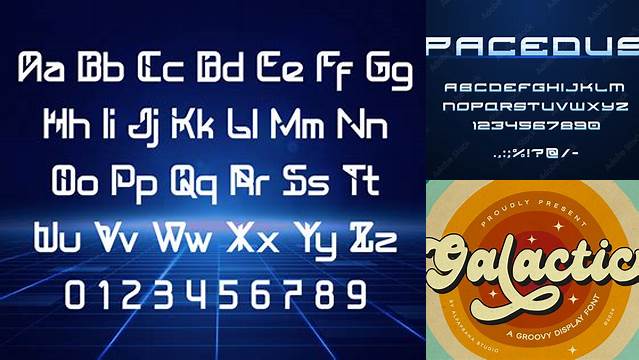
Space Fonts: Galactic Typography On FontSpace
Hey guys! Ever felt like your designs are missing that cosmic touch? Want to blast your audience into another galaxy with your typography? Well, you’ve landed in the right place! We're diving deep into the universe of space fonts on FontSpace, exploring everything you need to know to make your projects stellar. From sleek, futuristic designs to retro, sci-fi vibes, get ready to discover a font that’s truly out of this world! Let's embark on this interstellar journey together and make your words shine brighter than a supernova! Get ready to elevate your design game to astronomical levels. In this article, we will cover everything from the basics of space fonts to advanced tips and tricks for using them effectively. We’ll explore the history, the different styles available, and how to choose the perfect one for your project. So buckle up, because we’re about to launch into a galaxy of type!
1. What are Space Fonts?
So, what exactly are space fonts, you ask? Well, think of them as the typographical equivalent of a rocket ship! These fonts are designed to evoke the feeling of outer space, futuristic technology, and the unknown. They often feature sleek lines, geometric shapes, and a modern aesthetic. Space fonts can range from minimalist and clean to bold and experimental, making them incredibly versatile for a variety of projects. You'll often find these fonts used in science fiction themes, tech startups, and anything that needs a touch of the future. The use of space fonts can instantly add a layer of sophistication and intrigue to your designs. Imagine the possibilities! From sleek logos to captivating posters, a well-chosen space font can make all the difference. These fonts are not just about aesthetics; they're about conveying a message of innovation, progress, and boundless possibilities. When you're looking for that extra something to make your project stand out, consider the power of space fonts. They’re the secret ingredient to making your designs truly shine in the vast expanse of the creative universe.
2. The History and Evolution of Space Fonts
The history of space fonts is as fascinating as the cosmos itself! This genre of typography has evolved alongside our fascination with space exploration and science fiction. Early examples can be traced back to mid-20th century science fiction films and literature, where designers sought to create visuals that matched the futuristic narratives. These early fonts often featured sharp angles, bold lines, and a sense of mechanical precision. As technology advanced and our understanding of space deepened, so too did the design of space fonts. The digital age brought new tools and techniques, allowing for more intricate and experimental designs. Today, space fonts are incredibly diverse, ranging from retro-futuristic styles reminiscent of classic sci-fi to sleek, modern designs that mirror cutting-edge technology. This evolution reflects not only our changing aesthetic preferences but also our ever-expanding vision of the future. The ongoing exploration of space continues to inspire new designs, making the history of space fonts a dynamic and ever-evolving story. Understanding this history gives you a greater appreciation for the artistry and creativity behind these fonts, and it helps you choose the perfect one to convey your message effectively. The journey of space fonts mirrors our own journey into the stars—full of innovation, imagination, and endless possibilities.
3. Popular Styles of Space Fonts on FontSpace
FontSpace is a treasure trove of space fonts, guys! You can find a huge variety of styles to suit any project. One popular style is the futuristic sans-serif. These fonts are characterized by their clean lines and minimalist designs, perfect for conveying a sense of modernity and technology. Think sleek logos and website headers! Another style is the retro-futuristic, which draws inspiration from classic science fiction. These fonts often have a more playful and whimsical feel, with rounded edges and unique letterforms. They're great for posters, book covers, and anything that needs a touch of vintage charm. Then there are the geometric space fonts, which use simple shapes and precise angles to create a visually striking effect. These fonts are bold and impactful, making them ideal for headlines and titles. Don't forget about the handwritten space fonts! These add a personal touch to your designs, while still maintaining a sci-fi vibe. No matter what your project is, FontSpace has a space font that will fit the bill. Exploring these diverse styles allows you to find the perfect voice for your design, whether you’re aiming for a sleek, modern look or a retro-futuristic feel. The variety on FontSpace means you're sure to discover a font that not only meets your needs but also inspires your creativity. So dive in and explore the endless possibilities!
4. How to Choose the Right Space Font for Your Project
Choosing the right space font for your project can feel like navigating a galaxy of options! But don't worry, guys, it's easier than you think. First, consider the overall tone and message you want to convey. Are you aiming for a sleek and modern look, or a more retro and playful feel? A futuristic sans-serif might be perfect for a tech startup, while a retro-futuristic font might be better for a science fiction novel cover. Next, think about the context in which the font will be used. Is it for a headline, body text, or a logo? Bold fonts work well for headlines, while more readable fonts are better for body text. Also, make sure the font is legible at different sizes. Test it out! Another important factor is the font's personality. Does it match the brand or project's identity? A geometric font might convey a sense of strength and precision, while a handwritten space font might feel more approachable and creative. Finally, don't be afraid to experiment! Try out different space fonts and see what resonates with you. FontSpace makes it easy to preview fonts and see how they look in your designs. With a little careful consideration, you'll find the perfect space font to make your project shine. Remember, the right font can elevate your design from ordinary to extraordinary, so take the time to choose wisely!
6. Best Futuristic Sans-Serif Space Fonts
Let’s blast off with some of the best futuristic sans-serif space fonts! Guys, these fonts are all about clean lines, minimalism, and a modern vibe. They're perfect for projects that need a techy, cutting-edge feel. Think logos, websites, app interfaces, and anything else that screams “future!” One standout is the Roboto font family. It’s a classic for a reason, offering excellent readability and a sleek design. Then there’s Montserrat, another popular choice with its geometric forms and clean lines. It's super versatile and looks great in both headlines and body text. Exo 2 is another fantastic option, with its sharp angles and futuristic aesthetic. It's perfect for making a bold statement. Don't forget about Rajdhani, a font that balances modern design with a touch of retro flair. It's a great choice if you want something that stands out but isn't too over-the-top. When you're choosing a futuristic sans-serif space font, consider its legibility and how well it fits with your overall design. These fonts are all about conveying a sense of innovation and sophistication, so make sure you pick one that reflects your message. With the right futuristic sans-serif space font, your project will look like it came straight from the 31st century! These fonts are your secret weapon for creating designs that are both stylish and forward-thinking.
7. Top Retro-Futuristic Space Font Choices
Time to jump into the retro-futuristic realm of space fonts! These fonts blend vintage charm with a sci-fi twist, giving your projects a unique and nostalgic feel. Imagine those classic sci-fi movie posters—that’s the vibe we’re going for! One top choice is Orbitron, a geometric sans-serif that screams retro-futurism. It’s bold, impactful, and perfect for headlines and titles. Bebas Neue is another fantastic option, with its tall and narrow letterforms. It’s super versatile and adds a touch of vintage cool to any design. Then there’s Akronim, a display font with a distinctive Art Deco influence. It’s perfect for adding a touch of elegance to your retro-futuristic projects. Don't forget about Pixel Operator, a pixelated font that brings a video game vibe to your designs. It's perfect for anything that needs a playful and nostalgic feel. When choosing a retro-futuristic space font, think about the era you want to evoke. Are you going for a 1950s sci-fi vibe or a more 1980s arcade feel? The right font can transport your audience to another time and place. With these top retro-futuristic space font choices, your designs will be out of this world! They’re the perfect way to add character and personality to your projects, making them stand out in a galaxy of ordinary designs.
8. Geometric Space Fonts for Impactful Designs
Ready to make a statement? Geometric space fonts are your go-to for impactful designs! These fonts use simple shapes and precise angles to create a visually striking effect. They’re bold, modern, and perfect for headlines, logos, and anything that needs to grab attention. Think clean lines and strong forms that command the viewer's gaze. One standout is Raleway, a versatile sans-serif with a geometric twist. It’s clean, elegant, and works well in a variety of contexts. Poppins is another excellent choice, with its circular forms and modern aesthetic. It’s super readable and looks great in both headlines and body text. Then there’s Futura, a classic geometric font that’s been used in countless iconic designs. It’s timeless and sophisticated. Don't forget about Cabin, a humanist sans-serif with a geometric structure. It's friendly and approachable, while still maintaining a modern feel. When choosing a geometric space font, consider the overall tone of your design. Are you aiming for a minimalist and sophisticated look, or a more bold and impactful statement? The right geometric font can add a sense of strength and precision to your project. With these top geometric space fonts, your designs will be sure to make a lasting impression. They’re the secret weapon for creating visuals that are both stylish and memorable, ensuring your message is heard loud and clear.
9. Handwritten Space Fonts: A Personal Touch
Let's add a personal touch to our cosmic designs with handwritten space fonts! Guys, these fonts bring a unique, human element to the futuristic genre. They’re perfect for projects that need a blend of high-tech and approachability. Think branding, invitations, and anything that needs a touch of warmth. One fantastic option is Permanent Marker, a bold and casual handwritten font that adds a playful vibe. It’s perfect for headlines and titles. Then there’s Architects Daughter, a clean and legible handwritten font that’s great for body text. It has a friendly and approachable feel. Amatic SC is another excellent choice, with its condensed letterforms and playful style. It’s perfect for posters and flyers. Don't forget about Coming Soon, a quirky handwritten font that adds a touch of whimsy to any design. When choosing a handwritten space font, consider the overall tone of your project. Are you aiming for a casual and friendly feel, or a more sophisticated and elegant look? The right handwritten font can make your design feel more personal and inviting. These fonts are the perfect way to balance the sleekness of space-themed designs with a touch of human warmth, making your project more engaging and relatable. With the right handwritten space font, your designs will feel like a friendly message from the future!
10. Space Fonts for Logos: Making Your Brand Stellar
Time to make your brand stellar with space fonts for logos! Your logo is the face of your brand, so choosing the right font is crucial. Space fonts can give your logo a modern, futuristic, or even retro-futuristic feel, depending on the style you choose. Think of brands like Tesla or SpaceX—their logos convey innovation and cutting-edge technology. That’s the power of a well-chosen space font. One key tip is to keep it simple and legible. A complex font might look cool, but if it’s hard to read, it won’t work well in a logo. Futuristic sans-serif fonts are often a great choice for logos, as they convey a sense of modernity and professionalism. Geometric fonts can also work well, adding a sense of strength and precision. If your brand has a more playful or retro vibe, a retro-futuristic space font might be the perfect fit. Don’t be afraid to experiment with different fonts and see what resonates with your brand’s identity. Consider the colors and overall aesthetic of your brand as well. The font should complement your brand’s visual identity, not clash with it. With the right space font, your logo will be unforgettable. It's the first step in creating a brand that’s truly out of this world, making a lasting impression on your audience and setting you apart from the competition.
11. Using Space Fonts in Web Design: A Cosmic Interface
Let’s talk about using space fonts in web design for a cosmic interface! Your website is your digital storefront, so its design should be both engaging and user-friendly. Space fonts can add a touch of futuristic flair to your website, but it’s important to use them strategically. Think about creating a visually stunning experience that keeps visitors engaged. For headlines and titles, bold space fonts can make a big impact. They draw the eye and convey your message effectively. However, for body text, readability is key. Choose a space font that’s easy to read at smaller sizes, such as a clean sans-serif. Consider using different space fonts for different elements of your website. A bold font for the header, a more readable font for the body, and a handwritten font for accents can create a dynamic and visually appealing design. But don’t overdo it! Too many fonts can make your website look cluttered and confusing. Pay attention to the font size, line height, and letter spacing. These factors can greatly affect readability and the overall look of your website. With the right space fonts, your website will be a cosmic experience for your visitors. It’s all about balancing style and functionality, creating a website that’s both beautiful and easy to use. Your website will not only look visually stunning but also provide a seamless and enjoyable experience for your users.
12. Space Fonts in Print Design: Posters and More
Time to explore space fonts in print design, focusing on posters and beyond! Print design offers a tangible way to connect with your audience, and the right space font can make your posters, flyers, and other materials truly stand out. Think about creating designs that are not only visually appealing but also communicate your message effectively in the physical world. For posters, bold and eye-catching space fonts are essential. You want to grab people’s attention from a distance. Geometric and retro-futuristic fonts can be particularly effective for posters, adding a sense of drama and excitement. For flyers and brochures, readability is key. Choose a space font that’s easy to read at smaller sizes, while still maintaining a futuristic vibe. Sans-serif fonts often work well for these types of projects. Consider the overall design and layout of your print materials. The font should complement the other elements, such as images and colors. A well-designed poster or flyer can leave a lasting impression, so choose your space font wisely. With the right font, your print materials will be out of this world, capturing the imagination and attention of your audience. These fonts are the perfect tool for creating designs that are both visually stunning and effective in conveying your message in the physical realm.
13. Space Fonts for App Interfaces: A Futuristic UX
Let's dive into using space fonts for app interfaces to create a futuristic UX! User experience (UX) is crucial for the success of any app, and typography plays a huge role in making an app both functional and visually appealing. Think about creating an interface that's not only sleek and modern but also intuitive and easy to use. Space fonts can give your app a high-tech feel, but readability should always be your top priority. For app interfaces, clean and legible sans-serif fonts are generally the best choice. They ensure that users can easily read text on different screen sizes and resolutions. Consider using different font weights and styles to create a visual hierarchy. Bold fonts can be used for headings and important information, while regular fonts can be used for body text. Pay attention to the spacing and alignment of text. Proper spacing can improve readability and make your app look more polished. Test your app on different devices to make sure the space font looks good and is easy to read. With the right space font, your app will have a futuristic and user-friendly interface. It’s all about creating a seamless and enjoyable experience for your users, making your app stand out in the crowded digital landscape. These fonts are the key to designing an app that's both visually impressive and highly functional.
14. Pairing Space Fonts with Other Fonts: Cosmic Harmony
Time to explore the art of pairing space fonts with other fonts for cosmic harmony! Choosing the right font pairing can elevate your design from good to great. It's like creating a symphony of typography, where each font plays its part in harmony with the others. One general rule is to pair a space font with a more classic or neutral font. This creates a balance between the futuristic and the familiar. For example, you could pair a bold geometric space font with a clean and legible sans-serif like Open Sans or Lato. Or, you could pair a retro-futuristic space font with a classic serif font like Garamond or Times New Roman. The key is to create contrast. Pairing two very similar fonts can make your design look bland and uninspired. Experiment with different font combinations to see what works best for your project. FontSpace makes it easy to preview fonts and see how they look together. Consider the overall tone and message of your design. The font pairing should reflect the mood and style you’re trying to convey. With the right font pairing, your design will have a polished and professional look. It's about creating a visual hierarchy that guides the viewer's eye and effectively communicates your message. Your designs will feel complete and harmonious, capturing the essence of cosmic balance.
15. Best Practices for Using Space Fonts
Let's talk about some best practices for using space fonts! Like any design element, space fonts should be used thoughtfully and strategically. Overusing them can make your design look cluttered and unprofessional. One key tip is to use space fonts sparingly. They’re best used for headlines, titles, and other prominent elements, rather than for body text. Readability is crucial, especially for body text. Choose a space font that’s easy to read at smaller sizes, or pair it with a more legible font for body text. Consider the overall tone and message of your design. The space font should complement the other elements and convey the desired mood. Don’t be afraid to experiment with different space fonts and styles, but always keep the end goal in mind. Make sure the font fits your brand identity and the specific project you’re working on. Pay attention to kerning, tracking, and leading. These typographic details can greatly affect the look and feel of your design. With these best practices in mind, you'll be able to use space fonts effectively and create stunning designs. It’s all about balance, readability, and thoughtful application, ensuring your space fonts enhance your message and captivate your audience.
16. Space Fonts for Gaming: Level Up Your Design
Time to level up your design with space fonts for gaming! The gaming industry is all about immersive experiences, and typography plays a crucial role in creating the right atmosphere. Think about fonts that evoke the feeling of futuristic technology, epic adventures, and intergalactic battles. Space fonts are a natural fit for gaming designs, whether you're working on a video game title, a gaming website, or promotional materials. For game titles and logos, bold and impactful space fonts are essential. You want to create a strong visual identity that players will remember. Retro-futuristic and geometric fonts can be particularly effective for gaming designs. For in-game text and user interfaces, readability is key. Choose a space font that’s easy to read on screens, even during fast-paced gameplay. Clean sans-serif fonts are often the best choice for this purpose. Consider the genre of the game when choosing a space font. A sci-fi game might call for a sleek and futuristic font, while a retro-arcade game might benefit from a pixelated font. With the right space font, your gaming designs will be truly immersive. It's about creating a visual experience that enhances the gameplay and draws players into the virtual world. Your designs will feel authentic and engaging, capturing the spirit of the game and resonating with your target audience.
17. Space Fonts in Science Fiction Book Covers
Let’s explore using space fonts in science fiction book covers! The cover is the first thing that potential readers see, so it needs to grab their attention and convey the genre and tone of the book. For sci-fi books, space fonts are a fantastic choice. They can instantly create a sense of futuristic adventure, mystery, and technological intrigue. One key tip is to choose a space font that reflects the specific subgenre of the book. A hard sci-fi novel might benefit from a sleek and minimalist font, while a space opera might call for a more dramatic and ornate font. Bold and eye-catching space fonts are essential for book titles. You want the title to be easily readable from a distance. Consider the overall design and imagery of the cover. The space font should complement the other elements, such as the artwork and colors. Don’t be afraid to experiment with different font combinations to find the perfect fit. FontSpace makes it easy to preview fonts and see how they look on a book cover mockup. With the right space font, your sci-fi book cover will be a visual masterpiece. It’s about creating a cover that not only grabs attention but also accurately represents the story within, enticing readers to embark on a literary journey through the cosmos.
18. Creating a Space-Themed Design: The Font's Role
Time to talk about creating a space-themed design and the vital role space fonts play! A space-themed design can evoke feelings of wonder, mystery, and the boundless possibilities of the universe. Typography is a key element in conveying this space aesthetic. Space fonts are the go-to choice for any space-themed project, whether it’s a poster, a website, or a logo. Think about the overall mood and style you want to create. Are you aiming for a futuristic and high-tech feel, or a more retro and vintage space vibe? The choice of space font will depend on this. Bold and geometric fonts can convey a sense of modernity and strength, while retro-futuristic fonts can add a touch of nostalgia and charm. Consider the other design elements, such as colors, images, and layout. The space font should complement these elements and create a cohesive visual experience. Dark backgrounds, starry patterns, and futuristic imagery often pair well with space fonts. Pay attention to the hierarchy of information. Use different font sizes and weights to guide the viewer’s eye and highlight important elements. With the right space font, your space-themed design will be out of this world. It's about creating a visual experience that captures the imagination and transports your audience to the cosmos. Your design will resonate with viewers, inviting them to explore the infinite possibilities of space.
19. Space Font Trends in Graphic Design
Let's explore the latest space font trends in graphic design! The world of typography is constantly evolving, and space fonts are no exception. Staying up-to-date with the latest trends can help you create designs that are both stylish and effective. One major trend is the use of minimalist space fonts. Clean lines, geometric shapes, and a focus on legibility are key characteristics of this trend. These fonts are perfect for modern and high-tech designs. Another trend is the resurgence of retro-futuristic space fonts. These fonts evoke the classic sci-fi movies and books of the mid-20th century. They’re perfect for adding a touch of nostalgia to your designs. Bold and impactful space fonts are also trending. These fonts are used to create strong visual statements, especially in headlines and logos. Variable fonts are another exciting trend. These fonts allow you to adjust various parameters, such as weight and width, giving you more flexibility in your designs. By staying informed about the latest space font trends, you can ensure that your designs are fresh and modern. It’s about using typography to create a visual experience that’s both cutting-edge and timeless, allowing your designs to stand out in a competitive landscape. Your projects will feel current and stylish, capturing the imagination of your audience.
20. Resources for Finding the Best Space Fonts
Okay, let's talk about resources for finding the best space fonts! Finding the perfect space font can be a bit of a quest, but with the right resources, it’s totally achievable. One of the best places to start is, of course, FontSpace! FontSpace has a huge selection of space fonts, both free and premium. You can easily search for specific styles, such as futuristic, retro-futuristic, or geometric. Another great resource is Google Fonts. While it may not have as many niche space fonts as FontSpace, it offers a solid selection of free and open-source fonts that can be used for commercial projects. MyFonts is a premium font marketplace with a vast library of high-quality fonts. They often have exclusive space fonts that you won’t find anywhere else. DaFont is another popular resource for free fonts. It has a wide variety of space fonts, but it’s important to check the licenses before using them for commercial projects. Creative Market is a great place to find both fonts and other design assets. They often have bundles and deals that can save you money. By exploring these resources, you’ll be well-equipped to find the perfect space font for your next project. It’s about leveraging the wealth of typographic options available to create designs that are both visually stunning and effective in communicating your message. Your font selection process will be streamlined and successful, leading to designs that truly shine.
21. The Psychology of Space Fonts: How They Affect Viewers
Let's dive into the psychology of space fonts: how they affect viewers! Typography is more than just choosing a pretty font; it's about understanding how fonts can evoke emotions and convey messages. Space fonts, in particular, have a powerful psychological impact. Think about how the sleek lines of a futuristic sans-serif font can convey a sense of modernity, technology, and innovation. These fonts are often used by tech companies and startups to project a cutting-edge image. Retro-futuristic space fonts, on the other hand, can evoke feelings of nostalgia, wonder, and the classic sci-fi era. They’re perfect for projects that want to tap into that vintage charm. Geometric space fonts often convey a sense of strength, precision, and stability. They’re a great choice for brands that want to project a sense of confidence and reliability. Even handwritten space fonts can have a psychological impact. They can add a touch of warmth and personality to a design, making it feel more approachable and human. By understanding the psychology of space fonts, you can choose the right font to effectively communicate your message and connect with your audience. It’s about leveraging the emotional power of typography to create designs that resonate on a deeper level, capturing the attention and imagination of your viewers. Your font choices will be more impactful and meaningful, enhancing the overall effectiveness of your designs.
22. Space Fonts and Accessibility: Ensuring Readability
Time to discuss space fonts and accessibility: ensuring readability! Accessibility is a crucial aspect of design, and typography plays a major role in making your designs inclusive. When using space fonts, it’s important to consider how easily they can be read by people with different visual abilities. One key tip is to choose space fonts that have good legibility, especially for body text. Clean sans-serif fonts are often a good choice, as they tend to be easier to read than more decorative fonts. Pay attention to the font size. Text that’s too small can be difficult to read, especially for people with visual impairments. Make sure there’s enough contrast between the text and the background. Low contrast can make text difficult to read. Consider the spacing between letters and lines. Proper spacing can improve readability and make your design more accessible. Test your designs with different users to get feedback on readability and accessibility. There are also accessibility testing tools that can help you identify potential issues. By prioritizing accessibility when choosing space fonts, you can create designs that are inclusive and enjoyable for everyone. It’s about making your message accessible to the widest possible audience, ensuring that your designs are not only visually appealing but also user-friendly for all viewers. Your commitment to accessibility will make a positive impact, creating designs that are truly inclusive.
23. Designing a Space Font: The Creative Process
Let's explore designing a space font: the creative process! Creating your own space font can be a rewarding and challenging experience. It allows you to express your creativity and develop a unique typographic voice. Think about embarking on a journey of visual expression, shaping letters that capture the essence of space. The first step is to define your concept. What style of space font do you want to create? Futuristic? Retro-futuristic? Geometric? What mood do you want to evoke? Research existing space fonts for inspiration, but be sure to put your own unique spin on your design. Sketch out your letterforms. Experiment with different shapes, lines, and angles. Consider the overall aesthetic and how the letters will work together as a cohesive font. Use font design software like FontLab or Glyphs to create your font digitally. These tools allow you to refine your letterforms and create a professional-quality font. Pay attention to details like kerning and hinting. These elements are crucial for ensuring that your font looks good at different sizes and resolutions. Test your font in different contexts to see how it performs. Get feedback from other designers and make revisions as needed. Designing a space font is a labor of love, but the result can be a truly unique and impactful addition to the world of typography. It’s about bringing your vision to life, creating letters that tell a story and capture the imagination. Your font will be a testament to your creativity and skill, adding a distinctive voice to the design landscape.
24. Common Mistakes to Avoid When Using Space Fonts
Time to discuss common mistakes to avoid when using space fonts! Like any design element, space fonts can be misused if you’re not careful. Avoiding these common pitfalls will help you create designs that are both stylish and effective. One of the biggest mistakes is overusing space fonts. They’re best used sparingly, for headlines and titles, rather than for body text. Using a space font for large blocks of text can make it difficult to read. Another mistake is choosing a space font that’s too decorative or illegible. Readability should always be a priority, especially for body text and user interfaces. Pairing too many space fonts in one design can create a cluttered and confusing look. Stick to one or two space fonts at most, and pair them with a more neutral font if needed. Ignoring kerning, tracking, and leading can also detract from the look of your design. Pay attention to these details to ensure that your text is visually appealing and easy to read. Using a space font that doesn’t fit the overall tone and message of your design is another common mistake. Choose a font that complements the other elements and conveys the desired mood. By avoiding these common mistakes, you’ll be able to use space fonts effectively and create stunning designs. It’s about thoughtful application and attention to detail, ensuring that your typography enhances your message and captivates your audience.
25. Space Fonts in Branding: Creating a Unique Identity
Let's explore using space fonts in branding to create a unique identity! Your brand’s visual identity is crucial for setting you apart from the competition, and typography plays a key role in this. Space fonts can be a powerful tool for creating a brand identity that’s modern, futuristic, and memorable. Think about how you can capture the essence of your brand’s personality and values. When choosing a space font for your brand, consider the overall message you want to convey. Do you want to project a sense of innovation, sophistication, or playfulness? The right space font can help you communicate these qualities. Use space fonts consistently across all your branding materials, from your logo to your website to your marketing collateral. This will help create a cohesive and recognizable brand identity. Consider the color palette and imagery you’re using in your branding. The space font should complement these elements and create a unified visual experience. Don’t be afraid to experiment with different space fonts and styles, but always keep your brand’s overall identity in mind. Your brand’s typography should be as unique and memorable as your brand itself. With the right space font, your brand will stand out in a crowded marketplace. It’s about creating a visual identity that resonates with your target audience and leaves a lasting impression, helping you build a strong and recognizable brand.
26. The Future of Space Fonts: What's Next?
Time to gaze into the crystal ball and ponder the future of space fonts! The world of typography is constantly evolving, and space fonts are likely to continue to innovate and adapt to new trends and technologies. Think about the exciting possibilities that lie ahead in the realm of typographic design. One trend we’re likely to see more of is variable fonts. These fonts allow for greater flexibility and customization, giving designers more control over the look and feel of their typography. We may also see the rise of more interactive and animated space fonts. These fonts could be used in web design, app interfaces, and even virtual reality experiences. The integration of artificial intelligence (AI) in font design is another exciting possibility. AI could be used to generate new space fonts automatically, based on specific parameters and design principles. The metaverse and virtual worlds are likely to influence the design of space fonts. We may see fonts that are specifically designed for use in virtual environments. The future of space fonts is bright, with endless possibilities for innovation and creativity. It’s about embracing new technologies and design trends to create typography that’s both visually stunning and functional, pushing the boundaries of what’s possible in the world of font design. The evolution of space fonts will continue to shape the visual landscape, offering designers new tools and techniques for creating captivating experiences.
27. Space Font Tutorials: Learning Resources for Designers
Let's talk about space font tutorials: learning resources for designers! Whether you’re a beginner or an experienced designer, there’s always something new to learn about typography. Think about expanding your knowledge and skills in the art of space font design and application. Fortunately, there are tons of great resources available online to help you master the art of using space fonts. Websites like Skillshare and Udemy offer a wide range of typography courses, including tutorials on space font design and application. YouTube is another fantastic resource for free tutorials. Many talented designers share their knowledge and expertise on YouTube channels. Design blogs and websites often publish articles and tutorials on typography. Look for resources that focus specifically on space fonts. Font design software like FontLab and Glyphs often have their own tutorials and documentation. Take advantage of these resources to learn the ins and outs of the software. Don’t be afraid to experiment and practice. The best way to learn about space fonts is to use them in your own designs. By taking advantage of these learning resources, you’ll be able to hone your skills and create stunning designs with space fonts. It’s about investing in your knowledge and expertise, mastering the techniques and principles of typography to elevate your design work. Your commitment to learning will empower you to create designs that are both visually compelling and effective in communicating your message.
28. Space Fonts on Different Operating Systems (Windows, Mac)
Time to discuss space fonts on different operating systems (Windows, Mac)! Using space fonts effectively means ensuring they look good across different platforms and devices. Think about how you can create a consistent visual experience for all users, regardless of their operating system. Both Windows and Mac operating systems support a wide range of font formats, including TrueType (.ttf) and OpenType (.otf). These formats are widely compatible and should work well for most space fonts. However, there can be slight differences in how fonts are rendered on Windows and Mac. This is due to differences in the operating systems’ font rendering engines. To ensure consistency, it’s a good idea to test your space fonts on both Windows and Mac. This will help you identify any potential issues and make adjustments as needed. Web fonts are another important consideration. If you’re using space fonts on your website, you’ll want to use web-friendly formats like WOFF and WOFF2. These formats are optimized for web use and will ensure that your fonts load quickly and display correctly on different browsers and operating systems. By considering the compatibility of space fonts across different operating systems, you can create designs that look great for everyone. It’s about attention to detail and a commitment to delivering a consistent user experience, ensuring that your typography enhances your message and captivates your audience, regardless of their platform of choice.
29. Licensing Considerations for Space Fonts
Let's talk about licensing considerations for space fonts! Understanding font licenses is crucial for using space fonts legally and ethically. Think about protecting yourself and the font designers by respecting their intellectual property rights. Font licenses specify how you can use a font. It’s important to read and understand the license before using a space font in your project. Some space fonts are free for personal use but require a commercial license for business or commercial projects. Other space fonts have more restrictive licenses that may limit how you can use them. There are different types of font licenses, including desktop licenses, web licenses, and app licenses. Make sure you have the appropriate license for your intended use. Some font foundries offer extended licenses that allow you to use a space font in a wider range of projects. If you’re unsure about a font’s license, it’s always best to contact the font designer or foundry for clarification. Using a space font without the proper license can result in legal issues and financial penalties. By understanding and respecting font licenses, you can use space fonts confidently and legally. It’s about ethical design practices and a commitment to respecting the intellectual property of font designers, ensuring that you use fonts in a responsible and legally compliant manner.
30. Showcasing Your Space Font Creations: Portfolios and Platforms
Time to discuss showcasing your space font creations: portfolios and platforms! If you’ve designed a space font or used space fonts in your designs, it’s important to showcase your work effectively. Think about sharing your creativity and inspiring others with your typographic expertise. A strong portfolio is essential for any designer. Your portfolio should include examples of your best work, including projects that feature space fonts. Create high-quality mockups and presentations to showcase your space fonts in the best possible light. This will help potential clients and employers visualize how your fonts can be used in real-world projects. There are many online platforms where you can showcase your design work, such as Behance, Dribbble, and Portfoliobox. Consider creating a profile on these platforms and sharing your space font creations. Social media is another great way to showcase your work. Share images and videos of your designs on platforms like Instagram, Twitter, and Facebook. Consider creating a website or online store to sell your space fonts. This will give you more control over how your fonts are presented and marketed. By showcasing your space font creations effectively, you can attract new clients, collaborators, and opportunities. It’s about visibility and recognition in the design community, ensuring that your typographic skills and creativity are appreciated and valued. Your portfolio and online presence will serve as a powerful tool for advancing your design career.